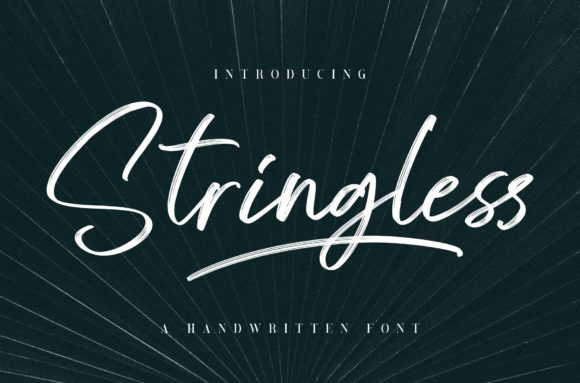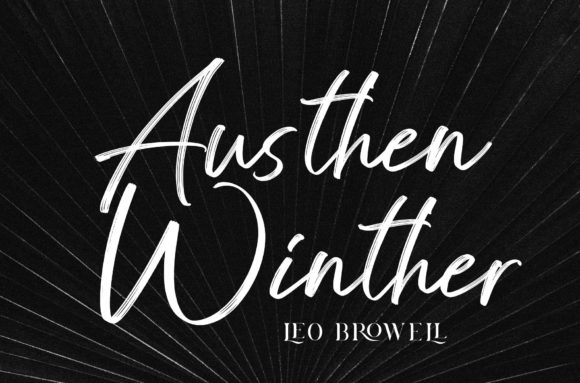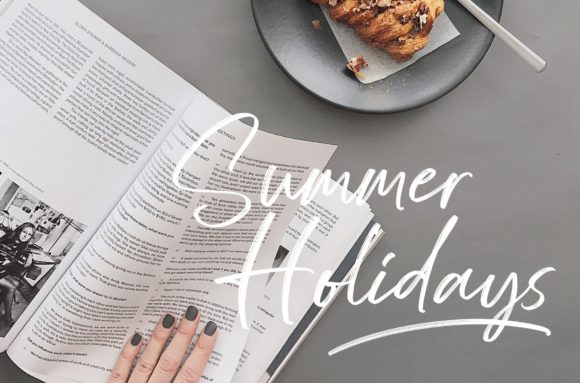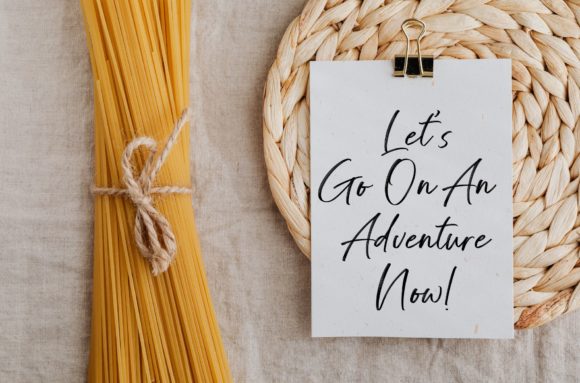
About Stringless Font
Stringless is a friendly handwritten font with a brush style. This font is suitable for branding, advertising, headlines, packaging design, and more.This font is PUA encoded which means you can access all of the glyphs and swashes with ease!